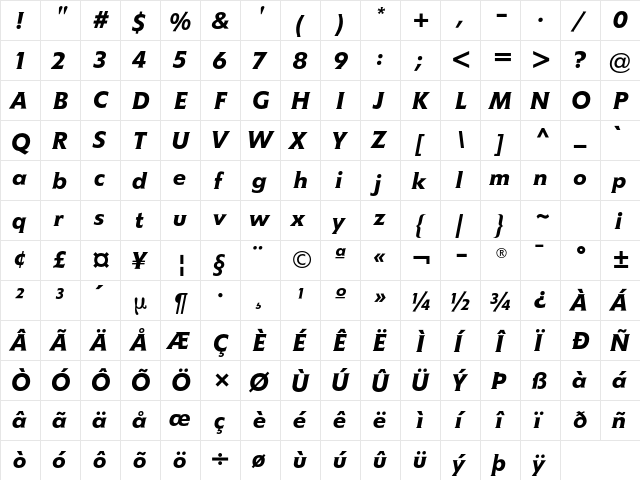
Memo Std Medium Italic
Design Context for Memo Std Typeface
Memo Std offers clean, dependable letterforms without strong stylistic allegiance, making it a practical choice for designers who need flexibility. Its italic angle brings a sense of urgency and motion to the letterforms.
Pro Tip: Use Memo Std for emphasis, pull quotes, and subheadings where its slanted energy can add rhythm to the layout.